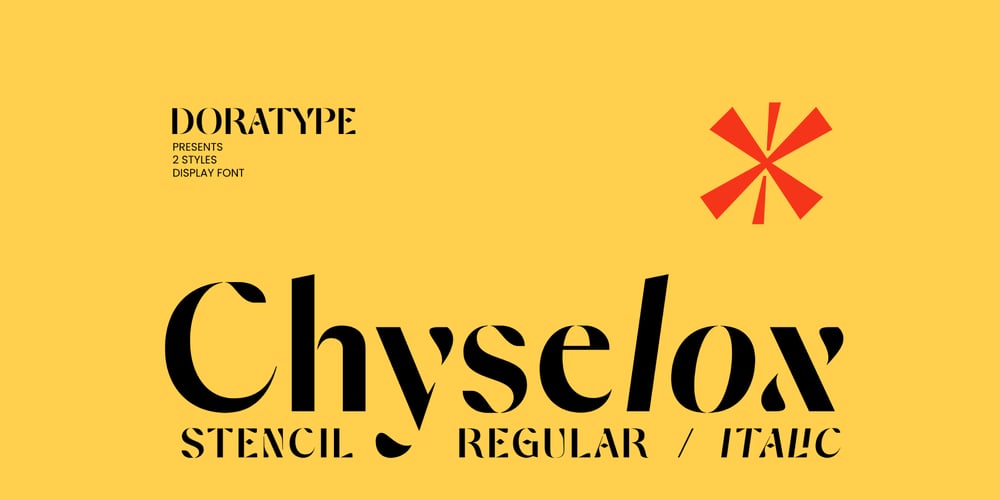
Chiselox Font Family was designed by Zahratul Laila and published by Dora Typefoundry. Chiselox contains 2 styles and family package options. Chyselox is a classic stancil sans-serif typeface with a friendly touch that feels very modern. Known for its subtle details making it versatile for a variety of uses across the brand.Features: All Caps Font with different uppercase and lowercase Number & Symbol Supported Languages Alternates and Ligatures PUA Encoded What is included: Chyselox Regular Chyselox Italic We highly recommend using a program that supports OpenType features and Glyphs panels like Adobe apps and Corel Draw, so you can see and access all Glyph variations.This type of family has become the work of true love, making it as easy and fun as possible.I really hope you enjoy it! if you have any questions or problems please contact email:doratypefoundry@gmail.comThank you Enjoy the font and go get creative ๐